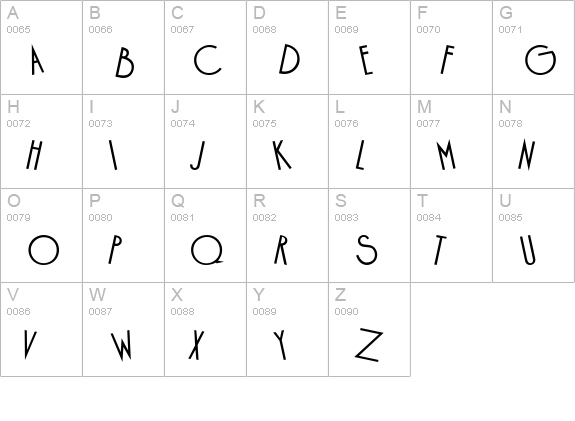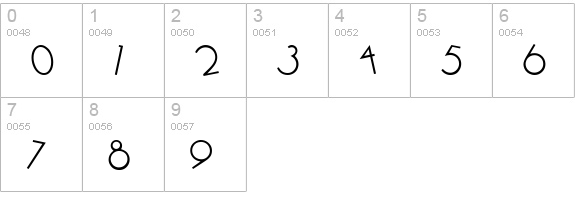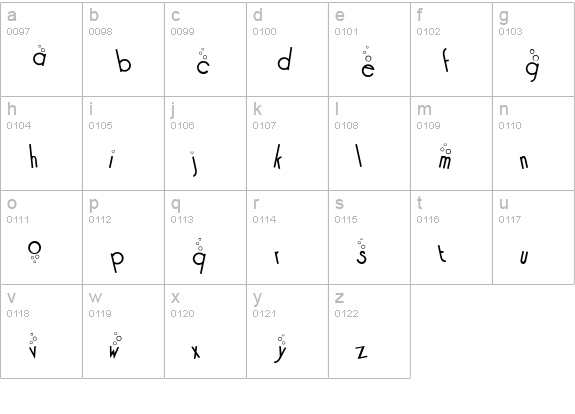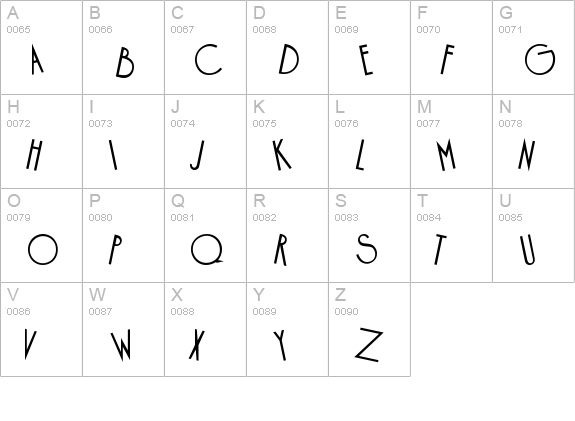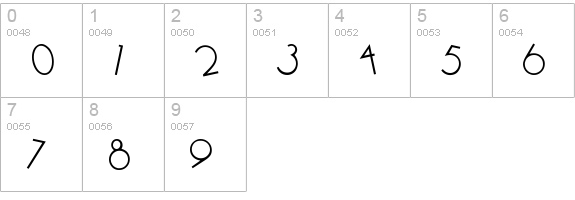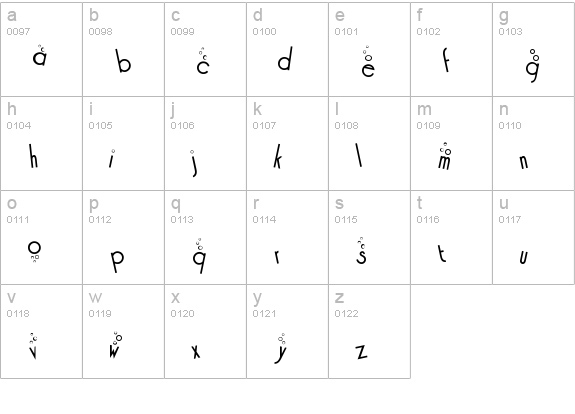
Cocktail Bubbly Font Details
Cocktail Bubbly font is a fun and whimsical typeface that is perfect for adding a touch of playfulness to your designs. With its bubbly and cheerful appearance, this font is sure to bring a smile to anyone who sees it. Whether you're creating invitations, posters, or social media graphics, Cocktail Bubbly font will add a festive and lighthearted vibe to your projects. The best part? Cocktail Bubbly font is available for free download at FontsMarket.com. That's right, you can easily access this delightful font and use it in your projects without any cost. So why wait? Add a pop of personality to your designs with Cocktail Bubbly font today!